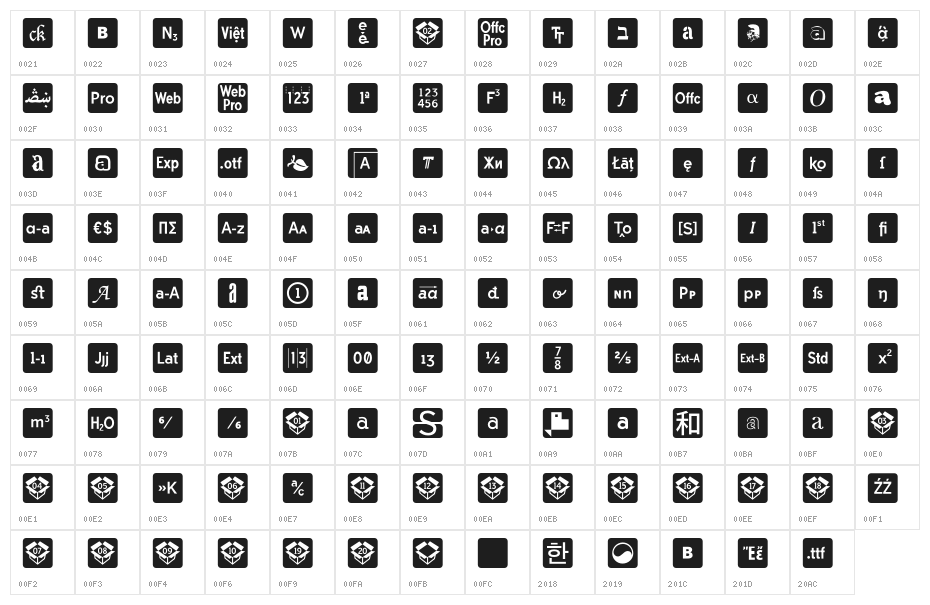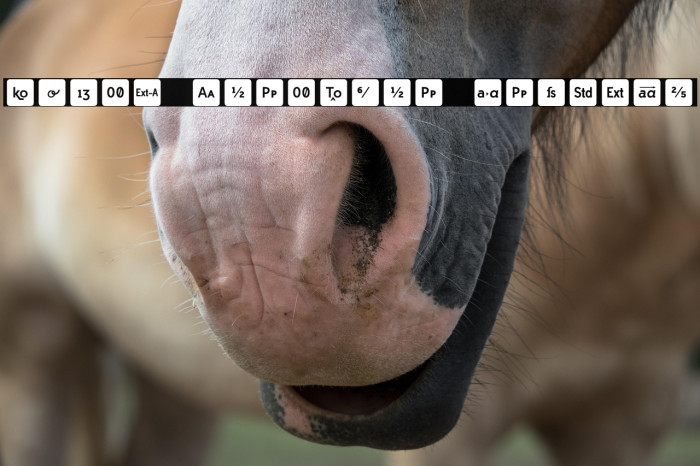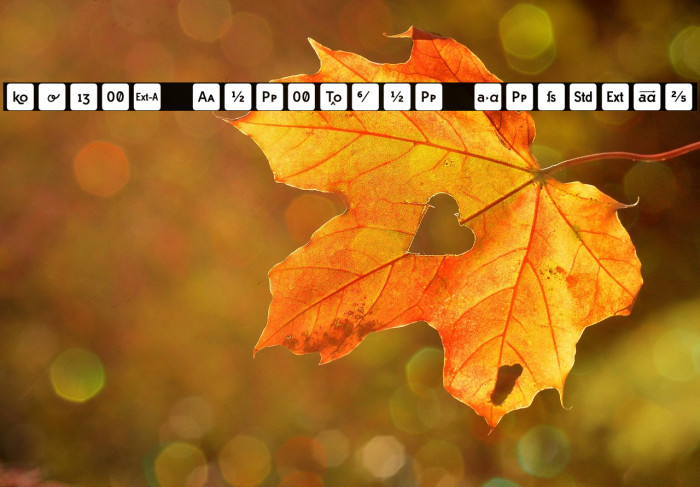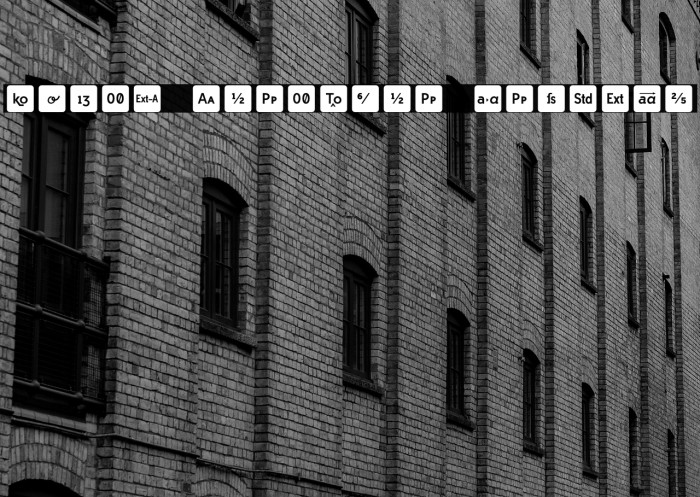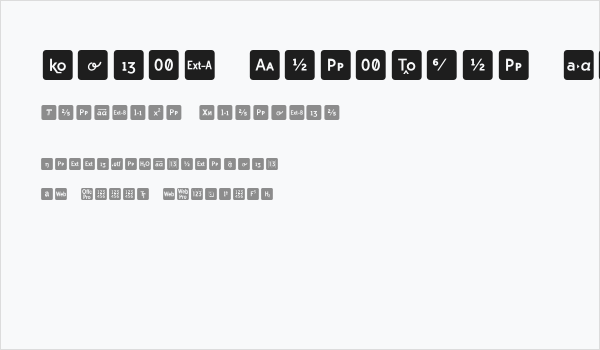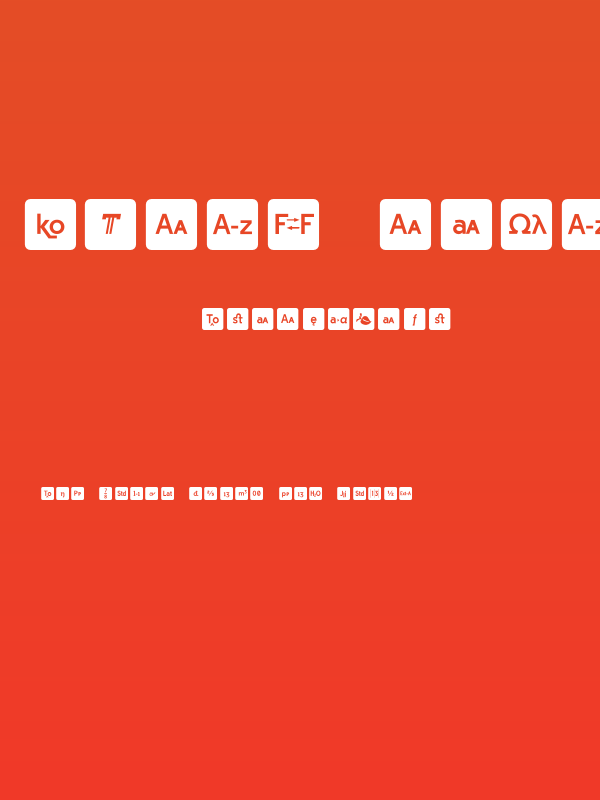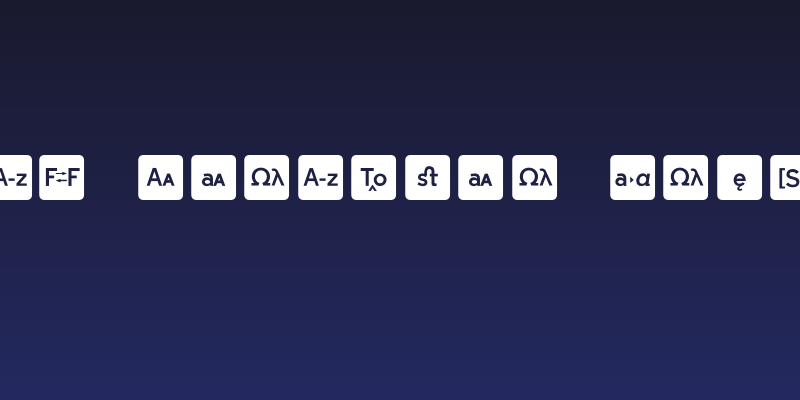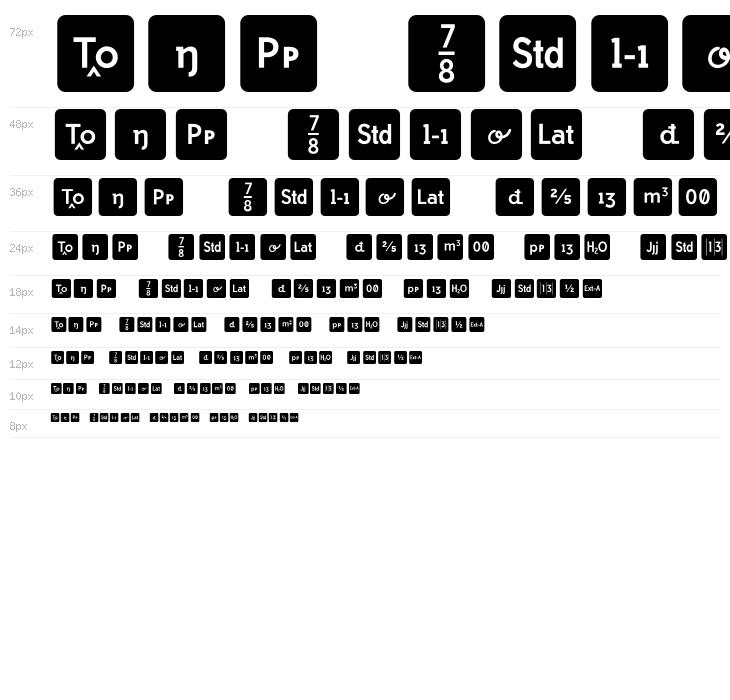
Icons OpenType Regular Font
Icons OpenType Regular Description
This font is a collection of various icons and symbols, each enclosed within a square, giving it a distinct and organized appearance. The characters range from mathematical symbols, fractions, and scientific notations to typographic ligatures and stylistic alternates. The design is clean and modern, with each icon clearly defined and easily recognizable. The consistent use of a square background for each character adds a uniformity that is visually appealing and functional for creating structured designs. This font is particularly useful for projects that require a variety of symbols and icons in a cohesive style.